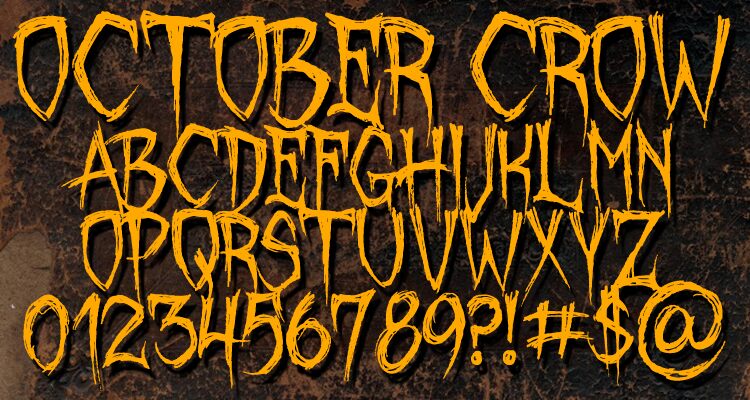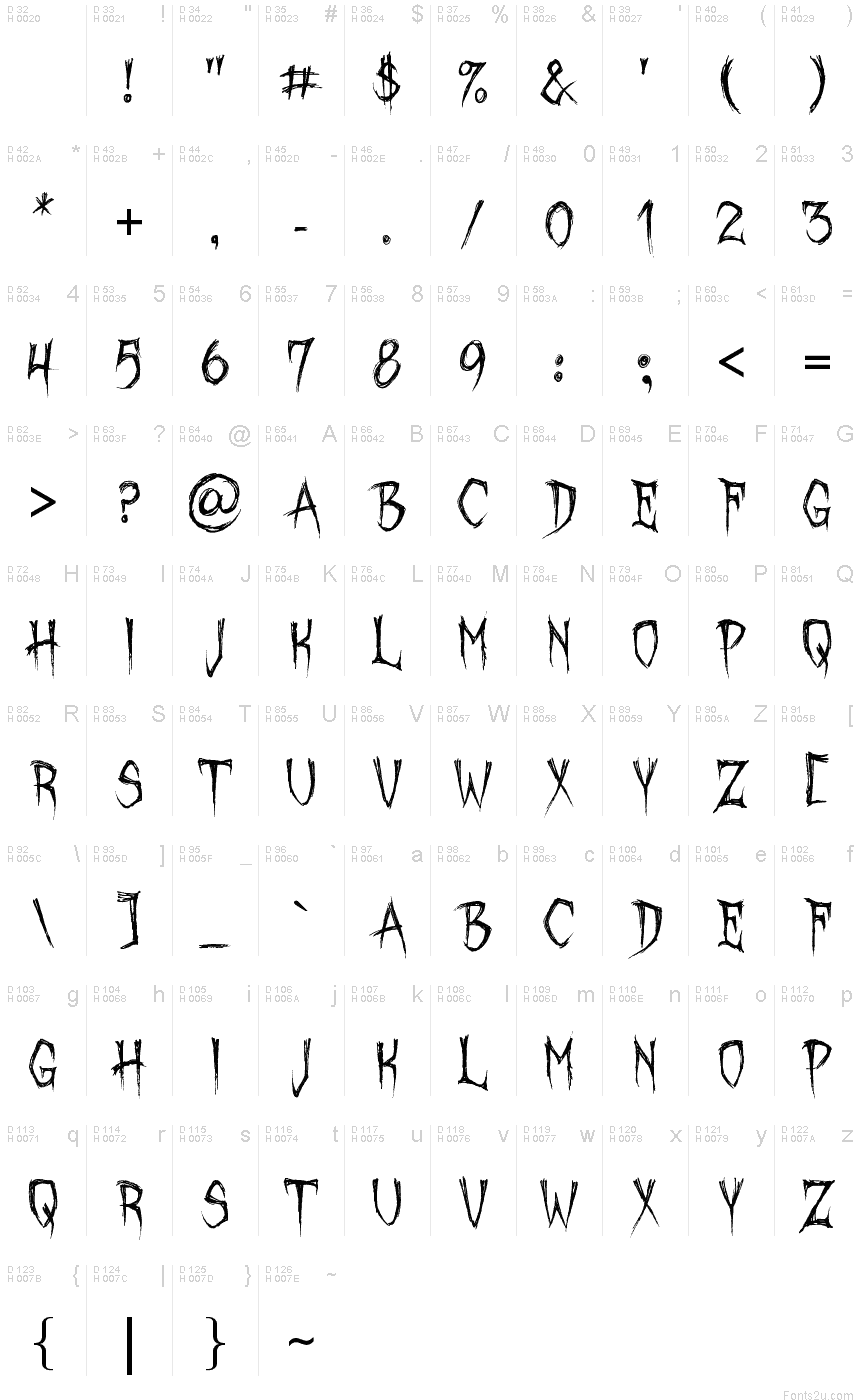
October Crow by Chad Savage of Sinister Fonts is a free graffiti-style display script with the raw tension of scratched horror lettering. Its narrow, uneven capitals combine spiked tops, looping curves, ragged edges, and streaks that trail beneath the letters. The baseline never quite settles.
Horror, punk music, and underground-comic themes suit its nervous marks, making it useful for posters, album art, and game title screens. For Halloween event graphics or novelty packaging, the ragged strokes can echo scratches, tangled branches, or distressed illustration. In branding, it is best matched to bands, haunted attractions, and products built around an intentionally unruly identity.
Hand-lettered in 2010 and converted into a PC font on Halloween 2010.
Hand-drawn while watching The Crow on Devil's Night, 2010; turned into a font on Halloween.